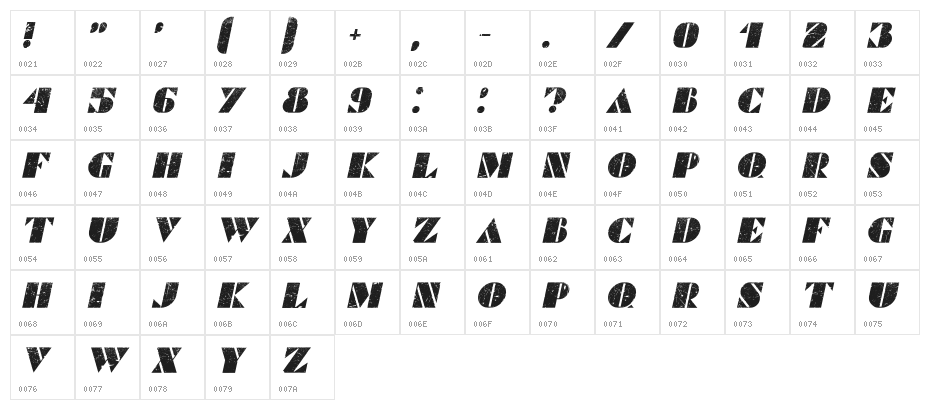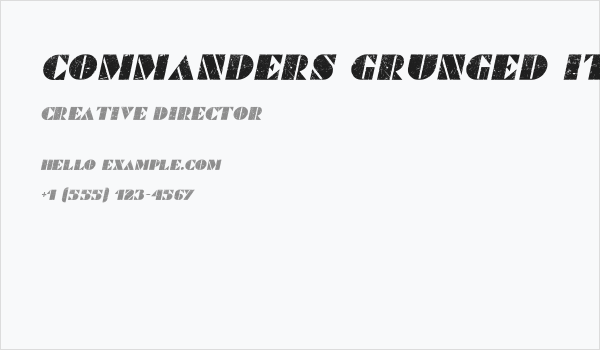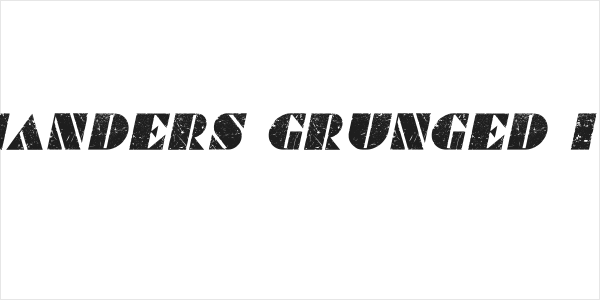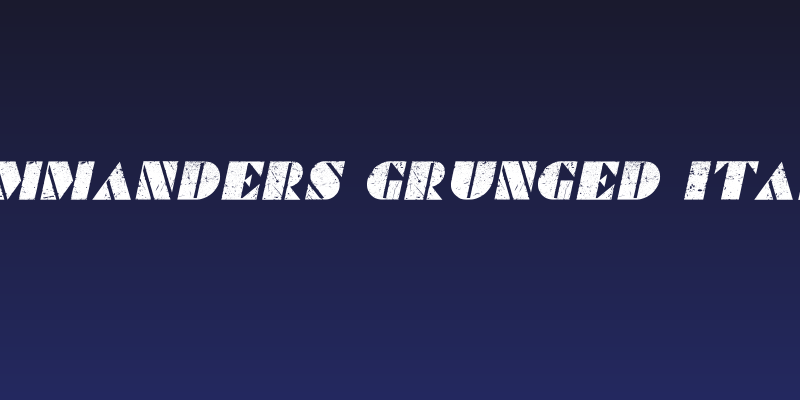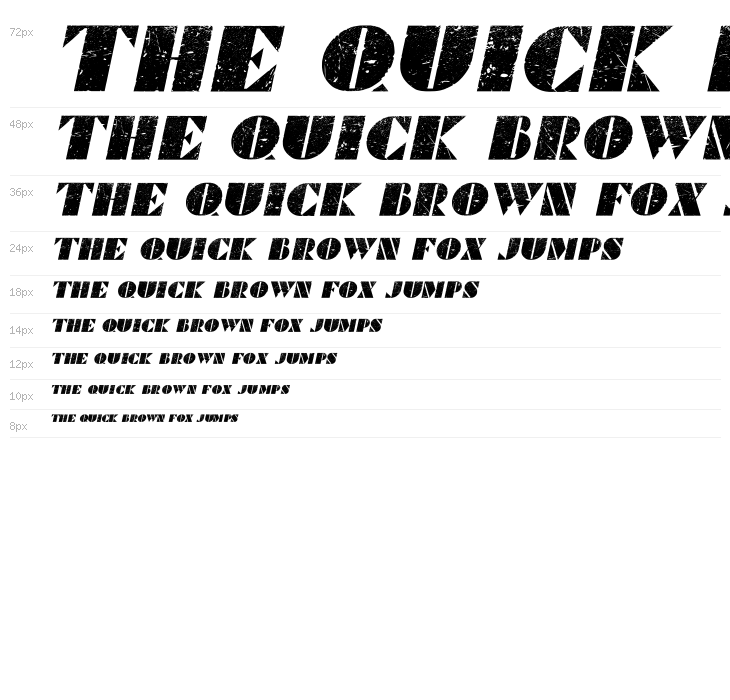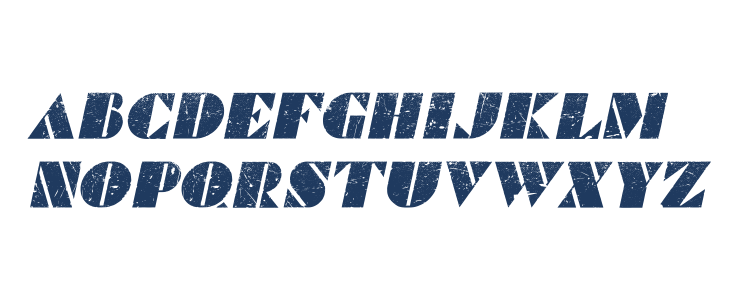
Commanders Grunged Italic Font
Commanders Grunged Italic Description
This font features a bold, italicized style with a distinct grunge texture, giving it a rugged and edgy appearance. The characters are heavily stylized with a distressed look, making them ideal for projects that require a raw and impactful visual statement. The uppercase and lowercase letters maintain a consistent slant, enhancing the italic effect. The numbers and special characters follow the same design principles, ensuring uniformity across all glyphs. The font's unique texture and boldness make it stand out, suitable for creative and unconventional design projects.
| Proposed Projects | Ideal for album covers, posters, streetwear branding, and edgy graphic designs. |